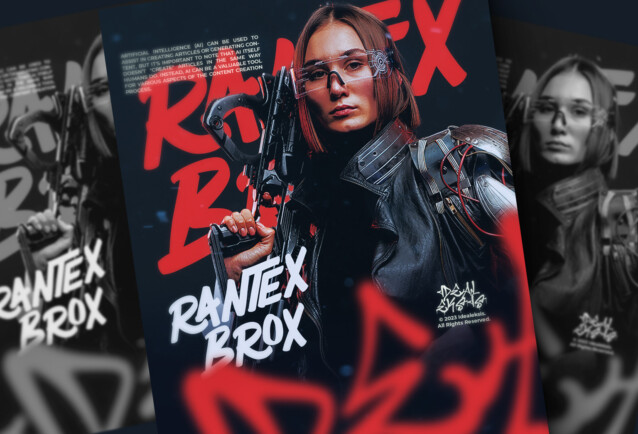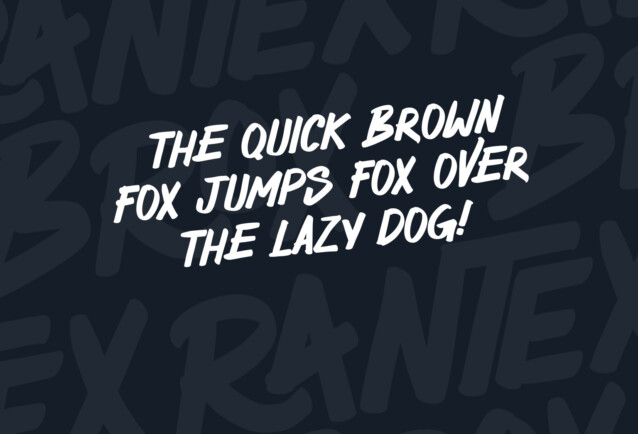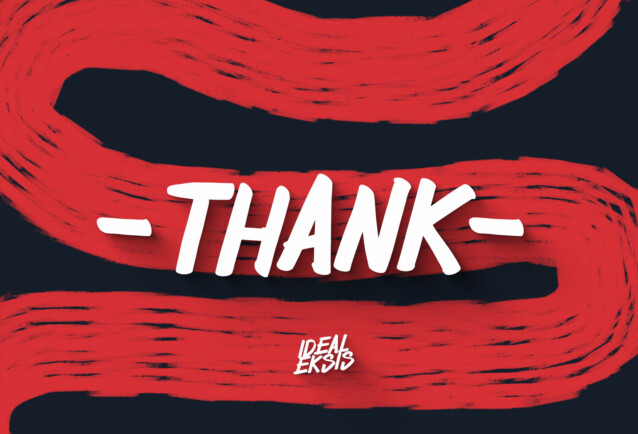
Rantex Brox Font
Rantex Brox Font is a sans serif handwritten font. Rantex Brox can be used in any works such as comic book, poster, school, flyer, book title, advertisement, social media content, logo and many more.